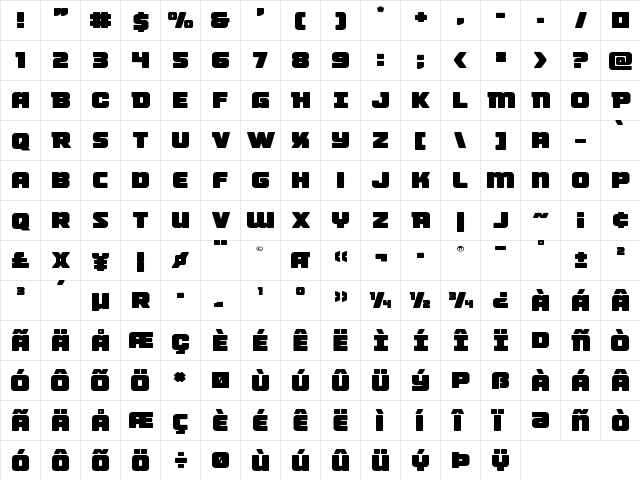
Victory Comics Expanded Expanded
Design Context for Victory Comics Expanded Typeface
Victory Comics Expanded trades formality for fun, with bouncy, characterful letterforms that bring warmth and energy to any project.
Font Pairing: Pairs well with a rounded or humanist sans for body copy, maintaining the friendly tone without relying on Victory Comics Expanded to carry extended reading.
Pro Tip: Use Victory Comics Expanded at larger display sizes where its expressive character can land. Pair with a clean, simple sans for body copy to maintain readability.